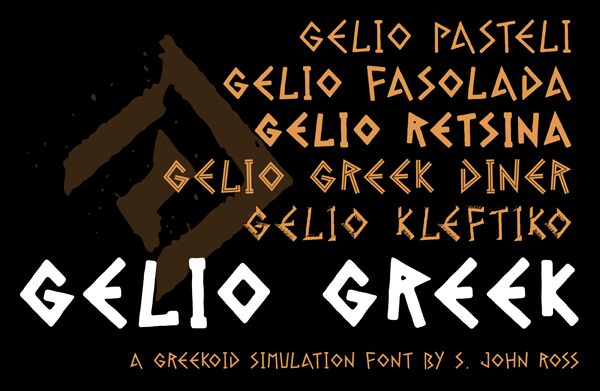
Gelio Kleftiko by S. John Ross of Cumberland Fontworks is a free eroded decorative display font with the look of roughly carved signs. Its tall, angular letters shift in width and height, and scraped patches break up the strokes with a dry, splintered texture.
A horror attraction, underground music label, or rebellious clothing brand could use this lettering as the core of its identity. It also suits festival posters and ruin-themed game graphics. Across those settings, the jagged silhouettes and battered surfaces make the words resemble props, from damaged placards to hastily cut emblems.